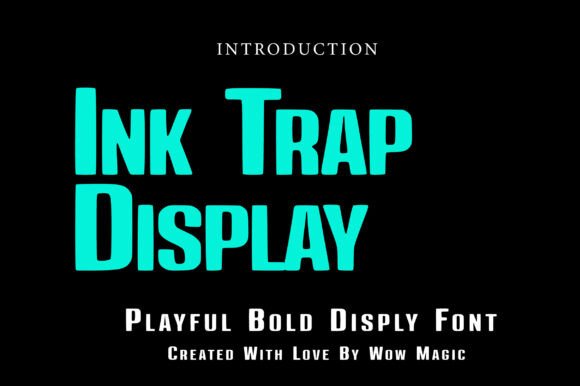
How Ink Trap Display Transformed My Brand's Visual Identity
I remember the day I decided to redesign my bakery’s packaging. It was one of those moments when you realize that even small details can make a big difference. For months, my labels had been using a generic font that felt flat and unexciting. I wanted something bolder, something that would catch attention and reflect the modern, clean vibe of my brand.
That’s when I discovered Ink Trap Display. It wasn’t just another sans-serif font—it had a distinct personality with sharp cuts and ink trap corners that made it stand out. It reminded me of the bold editorial typography I saw in design magazines, but with a twist that felt fresh and contemporary.
A Font That Speaks Volumes
Ink Trap Display is a modern sans-serif display font designed for impact. Its unique ink trap detailing gives it a subtle texture that adds depth without overwhelming the eye. The sharp angles and clean lines give it a confident, professional look, making it perfect for businesses looking to elevate their visual identity.
What stood out to me most was how versatile it was. It didn’t feel too formal or too casual—it struck the right balance between modern and approachable. I could see it working well on everything from product labels to social media posts.
From Bakery Boxes to Social Media
The first thing I did was apply Ink Trap Display to my bakery box labels. The result was immediate: my packaging looked more polished and consistent. The font gave a sense of precision and care that made customers pause and take notice.
I also used it for my Instagram templates. Before, my captions and headlines were inconsistent in style. Now, every post had a unified look that reinforced my brand’s voice. Even my thank-you cards started to feel more intentional with this font.
As I experimented further, I realized how well Ink Trap Display worked across different formats. It looked great on printed menus, digital ads, website banners, and even on my online shop graphics. It was like having a single visual thread connecting all my marketing materials.
Why Typography Matters More Than You Think
I used to think that fonts were just about aesthetics. But over time, I’ve come to understand how much they influence first impressions, readability, and overall brand perception. A good font can make your content more engaging, your brand more trustworthy, and your message more memorable.
Ink Trap Display helped me achieve that consistency. Whether it was on a small label or a large banner, the font always felt cohesive. It helped my brand look more professional and customer-friendly—something that resonated with my audience.
It also improved readability, especially on smaller labels and mobile screens. The clean lines and balanced spacing made sure that even short phrases stood out clearly without being overwhelming.
Font Pairing Tips for Small Businesses
One of the things I loved about Ink Trap Display was how well it paired with other fonts. For instance, I used it alongside a clean sans-serif font for body text on my website. The contrast made the headlines pop while keeping the rest of the content easy to read.
For a more elegant look, I paired it with a serif font for my boutique tags. It added a touch of sophistication without losing the modern edge. And when I needed something more personal, I used it with a handwritten font for custom thank-you cards.
The key was to use Ink Trap Display as the main display font and pair it with complementary styles for supporting text. This created a visual hierarchy that guided the eye naturally through the content.
Choosing the Right Font for Your Business
Before finalizing Ink Trap Display, I checked the included styles, file formats, and licensing options. It came with multiple weights and alternates, which gave me flexibility in how I used it. The commercial license was a must-have since I planned to use it on product packaging and digital downloads.
I also made sure it supported multilingual characters, which was important for my growing international customer base. Knowing that it was a premium font gave me confidence that it would hold up under any branding scenario.
For small businesses, choosing the right font isn’t just about looking good—it’s about standing out in a crowded market. Ink Trap Display helped me do that without sacrificing readability or professionalism.
Whether you’re updating your packaging, redesigning your website, or creating new marketing materials, the right font can be the missing piece that brings your brand together. And for me, that piece was Ink Trap Display.